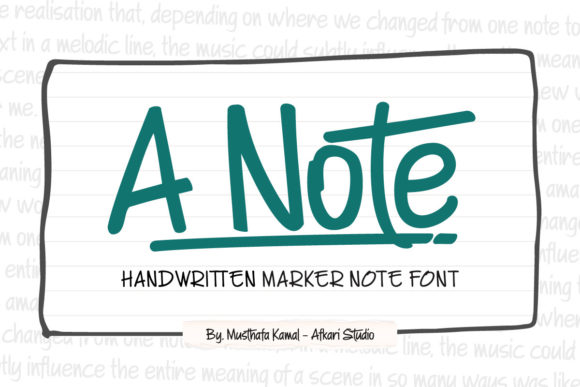
The Charm of A Note Font: Elevating Your Designs with a Personal Touch
I’ll never forget the time I was working on a project for a client’s wedding, trying to create a beautiful chalkboard quote that would set the tone for the entire event. I had all the design elements ready, but I was stuck on finding the perfect font. That’s when I stumbled upon A Note Font, a cute and simple lettered handwritten font that instantly caught my attention. Its authentic look and feel added a personal and realistic touch to my design, making it an instant favorite.
- ✨ A Note Font has a unique, handcrafted feel that adds a personal touch to any design.
- ✅ It’s incredibly versatile and works well for chalkboard quotes, teaching materials, and more.
- ✅ The font is easy to read, even at smaller sizes, making it perfect for a variety of applications.
- ✅ It’s a great choice for designers who want to add a touch of whimsy and charm to their work.
- ⚠️ A Note Font may not be the best choice for very formal or corporate designs, as it has a distinctly casual feel.
- ⚠️ Some users have reported issues with kerning, particularly when using the font at larger sizes.
The Story Behind A Note Font
A Note Font was designed with the intention of creating a font that would add a personal touch to any design. The designer wanted to create a font that would evoke a sense of warmth and approachability, making it perfect for designers who want to add a touch of whimsy to their work.
Q: What is A Note Font?
A: A Note Font is a cute and simple lettered handwritten font that’s perfect for chalkboard quotes, teaching materials, and more.
Q: What are some common uses for A Note Font?
A: A Note Font is perfect for designers who want to add a personal touch to their work, including chalkboard quotes, teaching materials, and more.